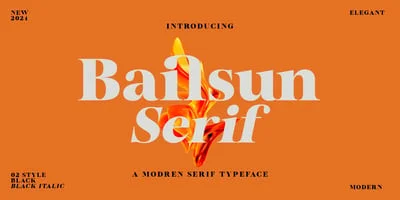
Bailsun Font
Bailsun Font is perfect for sunny lifestyle branding, summer festival graphics, outdoor adventure marketing, beach resort signage, vacation travel promotions, tropical product packaging, seasonal campaign materials, sunshine-themed event designs, cheerful hospitality communications, and vibrant leisure industry applications.
What makes Bailsun Font exciting is its radiant warmth that perfectly captures the joyful energy and uplifting spirit of bright sunny days and optimistic outdoor experiences. This typeface features cheerful letterforms with bright proportions and sun-inspired details that instantly evoke feelings of happiness, vitality, and the natural warmth that comes from beautiful weather and outdoor adventures. The font's sunny personality and optimistic aesthetic make it ideal for lifestyle brands seeking to convey joy, energy, and the uplifting positivity that brightens every day with natural sunshine and outdoor enthusiasm.
Bailsun Font family includes bright weight variations and cheerful alternatives that enhance its sunny appeal while providing design flexibility for outdoor and lifestyle applications. The font features radiant ligatures, sunshine-themed ornaments, and energetic character variations that create authentic sunny atmosphere for outdoor and lifestyle branding.
Outdoor recreation companies and lifestyle brands consistently select Bailsun Font for projects requiring authentic sunny appeal and positive energy. The font's bright character excels in applications targeting outdoor enthusiasts, adventure seekers, and lifestyle consumers who appreciate natural beauty and outdoor experiences. Whether you're designing for adventure tourism, outdoor gear, or sunny lifestyle products, this luminous typeface delivers the sunshine authenticity and natural optimism that resonates with audiences seeking genuine outdoor joy and the life-affirming energy that comes from embracing beautiful weather and natural outdoor adventures.